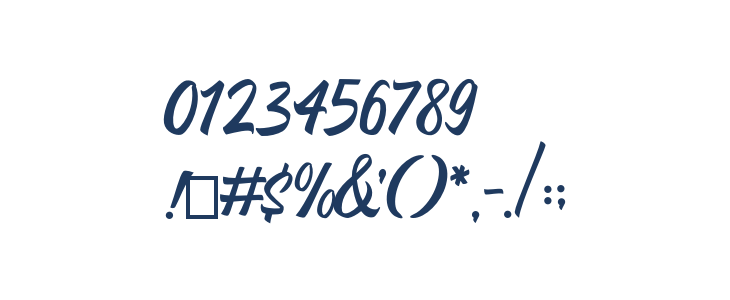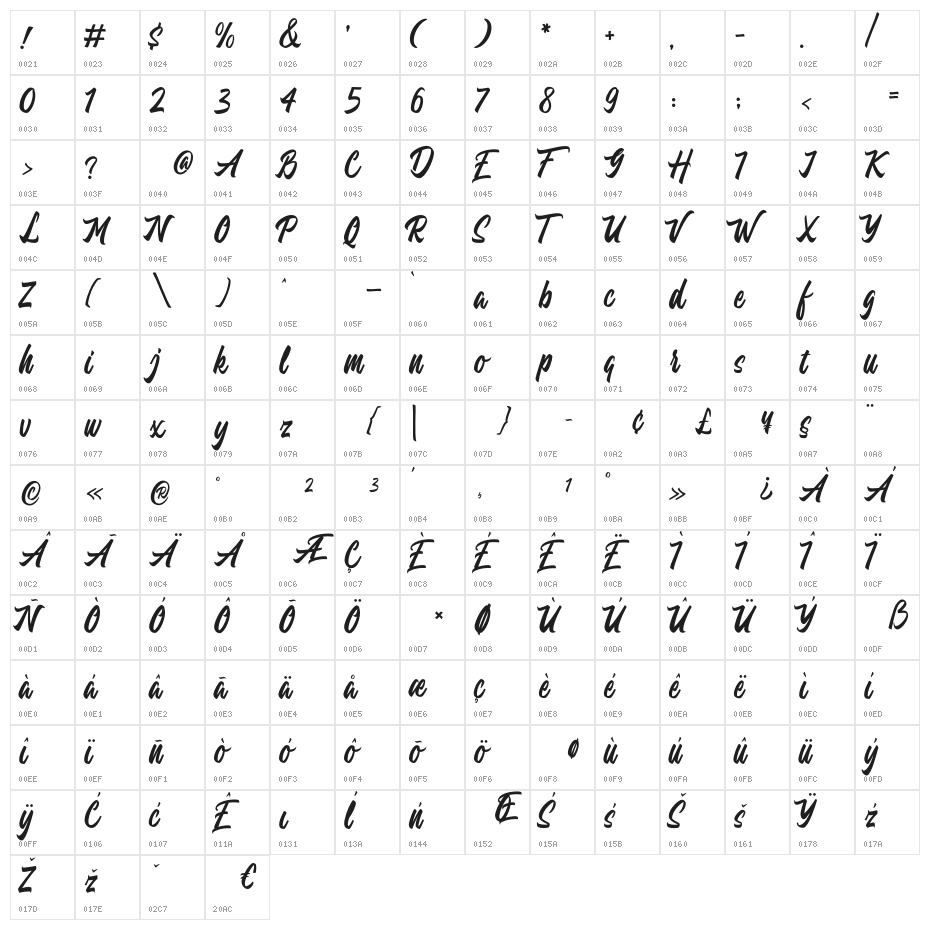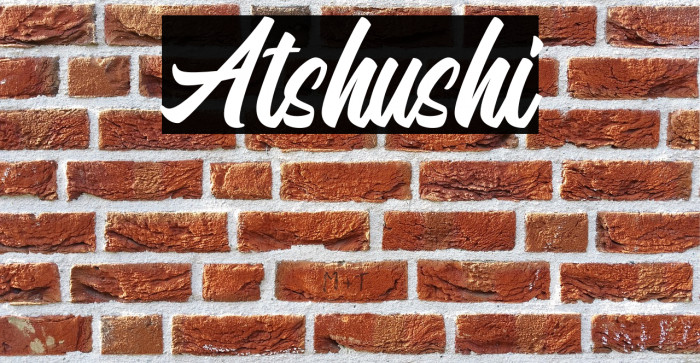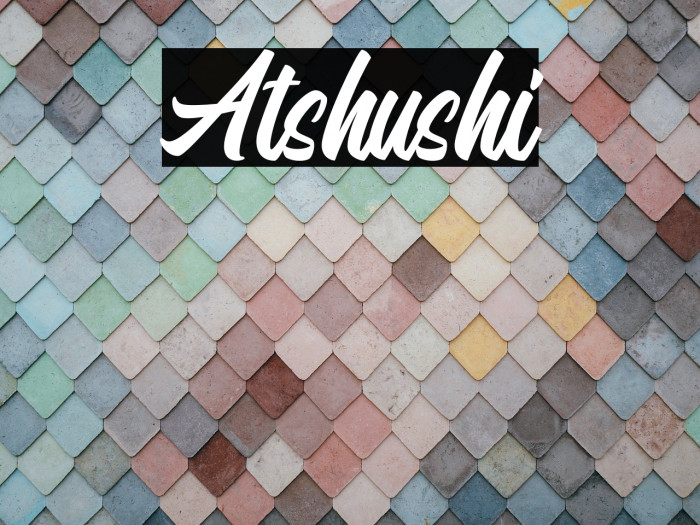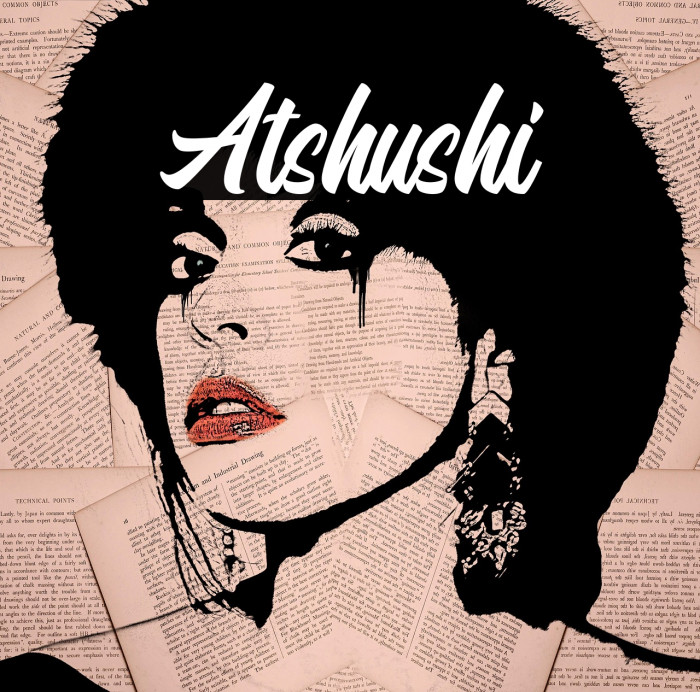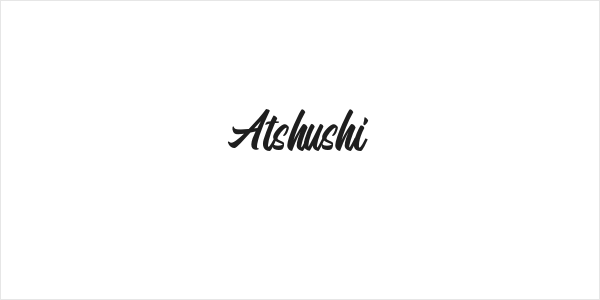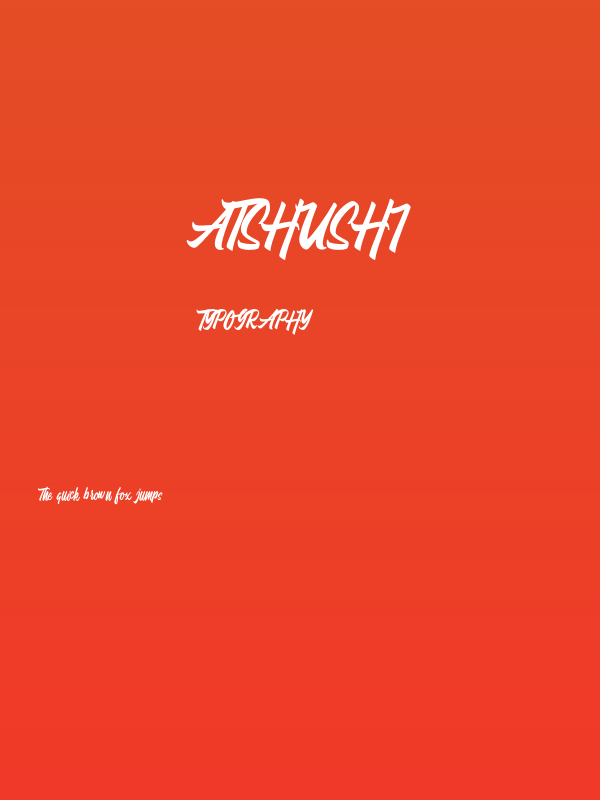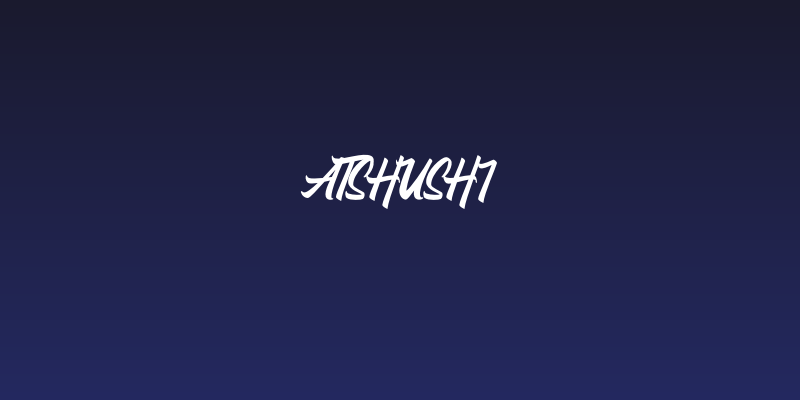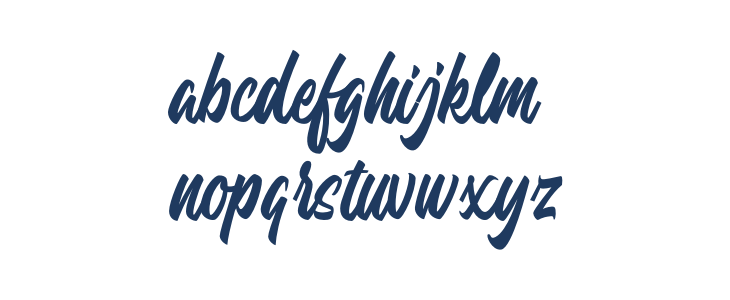
Atshushi Font
Atshushi Description
This font features a bold, cursive style with a dynamic and energetic flow. The letters are connected, giving it a handwritten appearance that is both stylish and expressive. The uppercase letters are slightly larger and more pronounced, while the lowercase letters maintain a consistent flow. The numbers and special characters are designed to match the overall aesthetic, with smooth curves and a sense of movement. This font is ideal for projects that require a personal touch, such as invitations, greeting cards, or branding materials.
| Proposed Projects | Ideal for invitations, greeting cards, branding, and personal projects. |